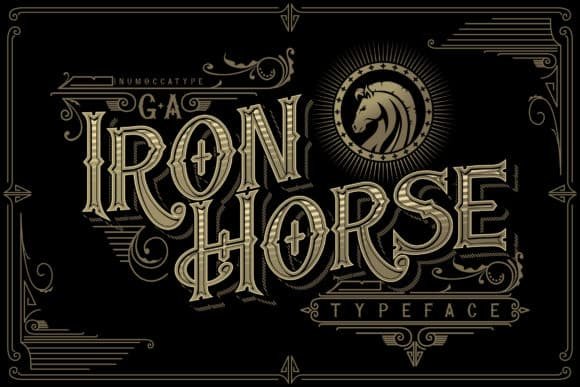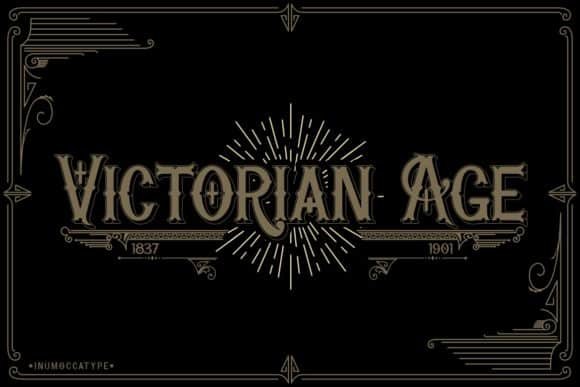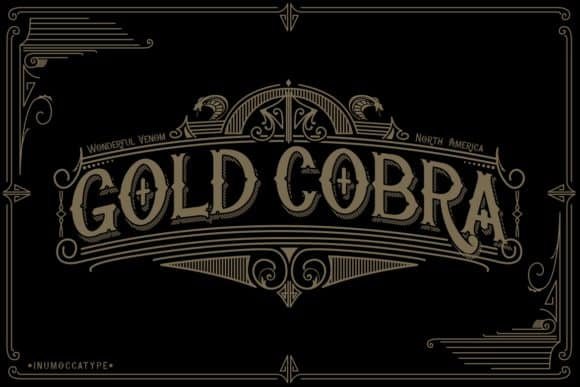
Black letter Font / FontsIron Horse Font Download 14/02/202527/02/2025 - by Awais Farooq Iron Horse is a bold blackletter font. This font would be ideal for writing web designs, cards, or pretty much anything else that requires a unique touch. Related Posts:The Photography Business Card DownloadThe Business Card Download Milwaukes Font DownloadLong Rectangle Chocolate Box MockupAbigate Desgo FontThe Yellow Business CardThis is Madule FontCorporate Business Card Download Skincare Tube Mockup Sets DownloadThis is Grandma FontSuckira – Modern Elegant Serif FontBest Square Business Card MockupTransparent Food Container Box MockupGabule Font Free Download Steel Travel Cup Mockup